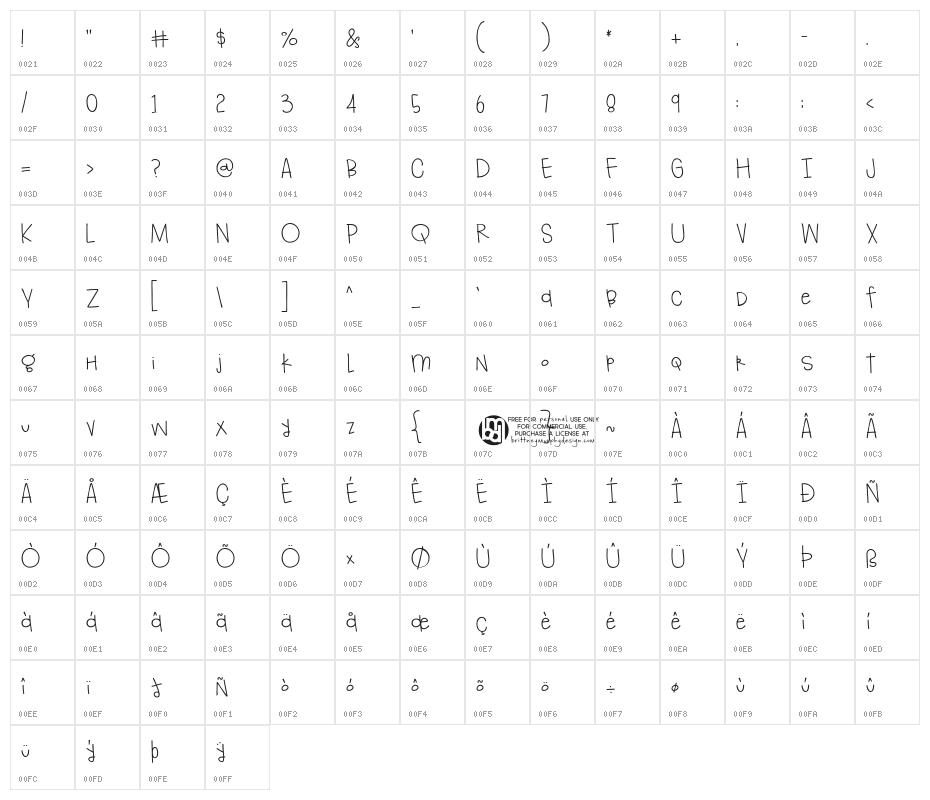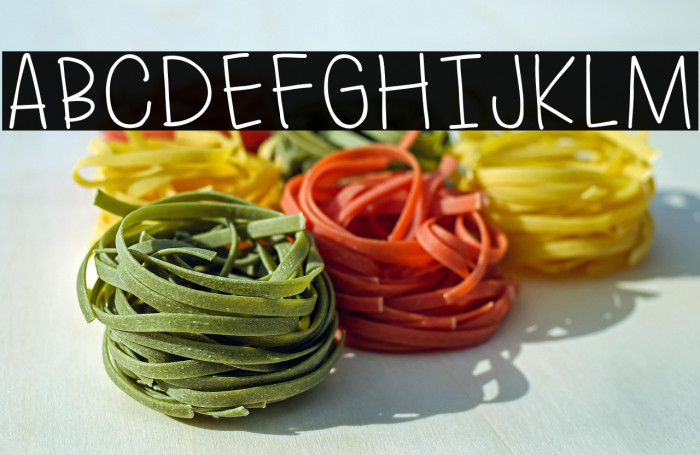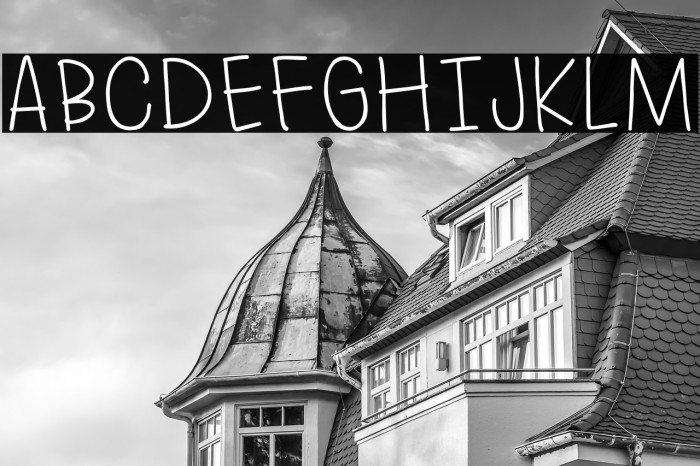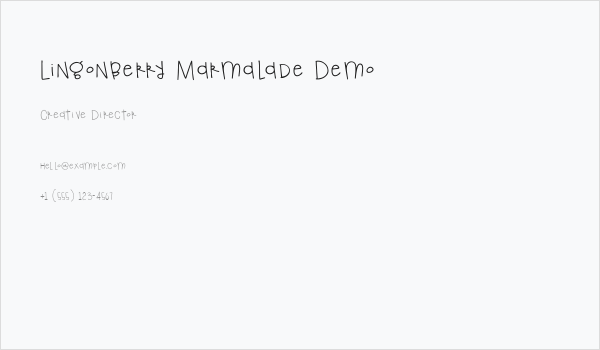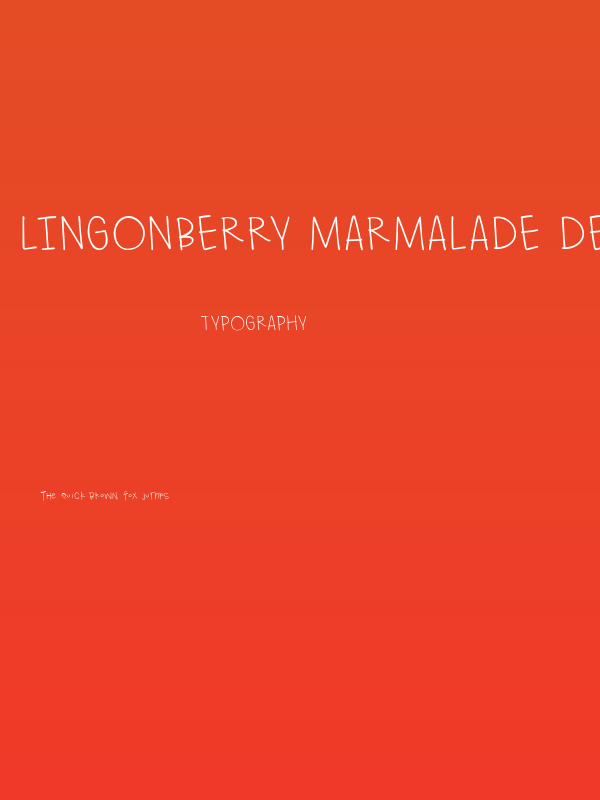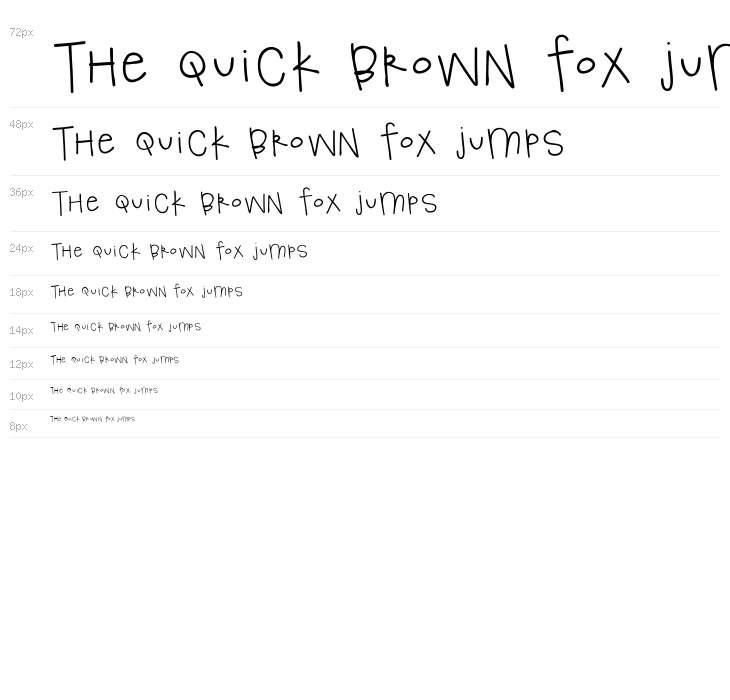
Lingonberry Marmalade Demo Font
Lingonberry Marmalade Demo Description
This playful and whimsical font features a hand-drawn aesthetic with irregular, slightly tilted characters that give it a casual and friendly appearance. The uppercase and lowercase letters maintain a consistent style, with rounded edges and a slightly uneven baseline, adding to its charm. The numerals and special characters are designed to match the quirky style of the alphabet, making it suitable for creative and informal projects. The font's unique personality makes it ideal for children's books, greeting cards, and playful branding.
| Overall Style | Whimsical |
| Use Case | Headlines, Logos, Informal text |
| Proposed Projects | Children's books, greeting cards, playful branding, informal invitations. |